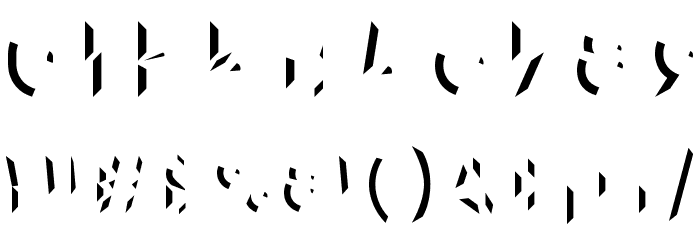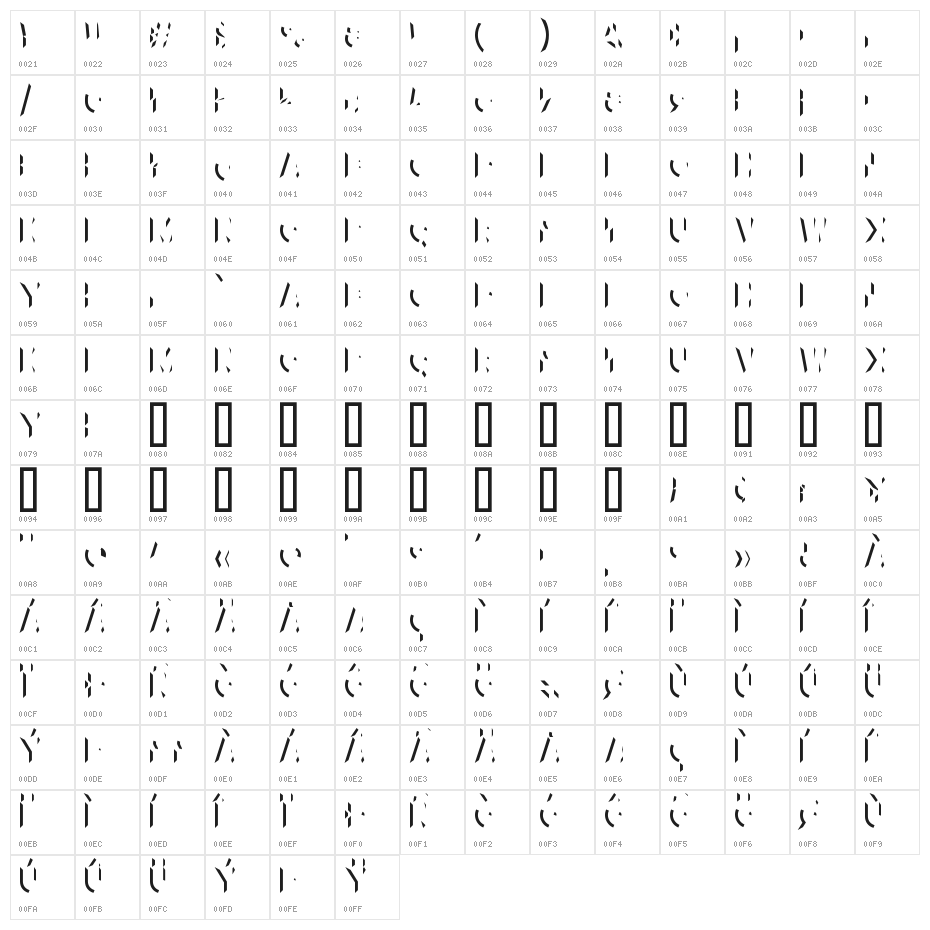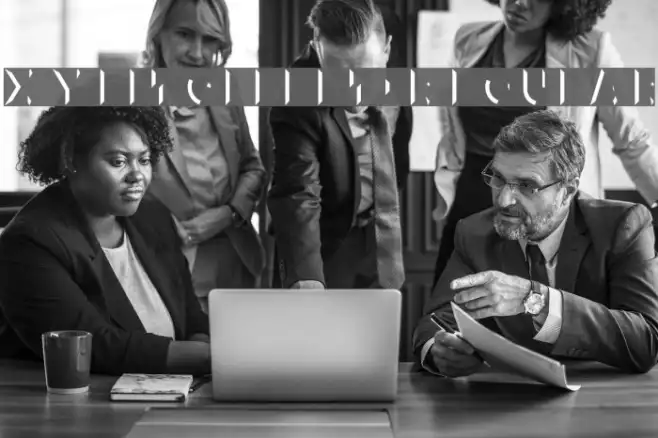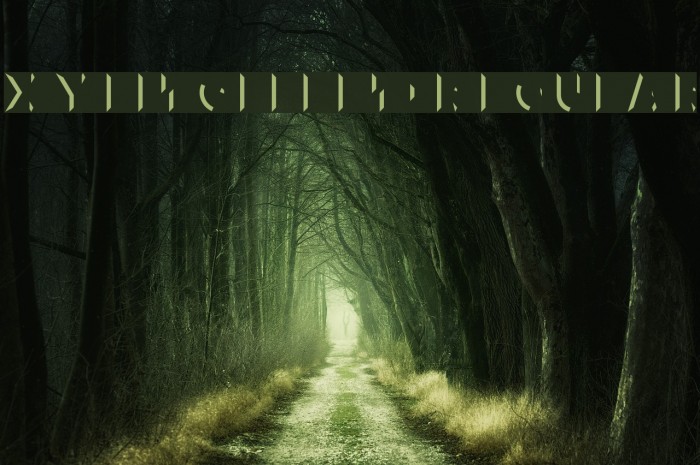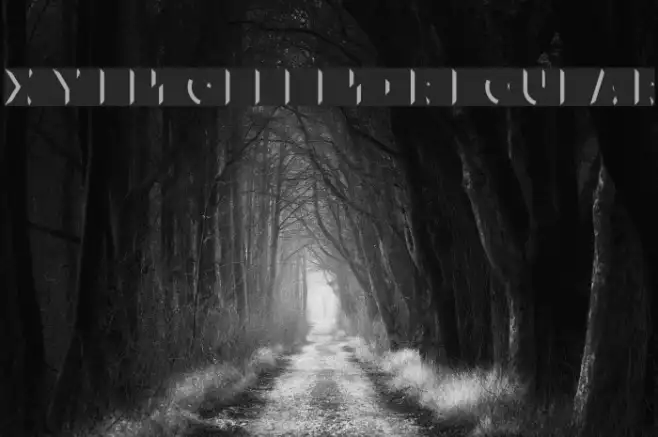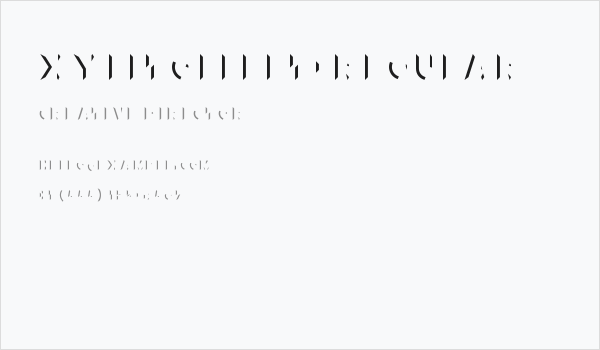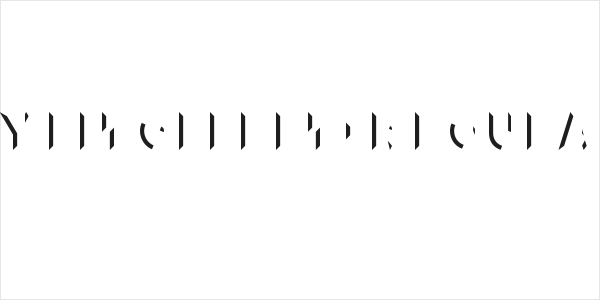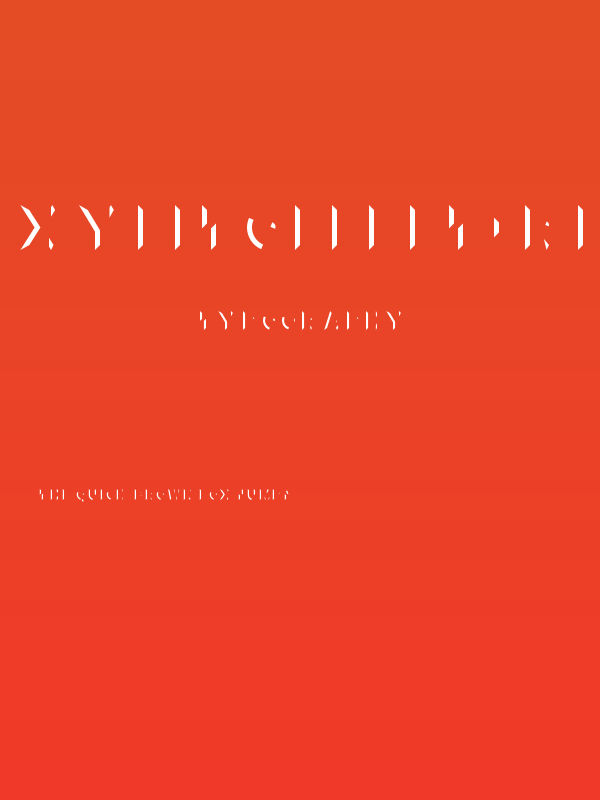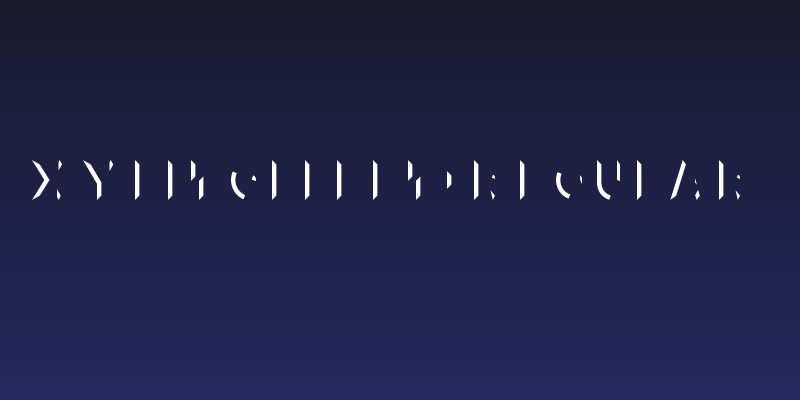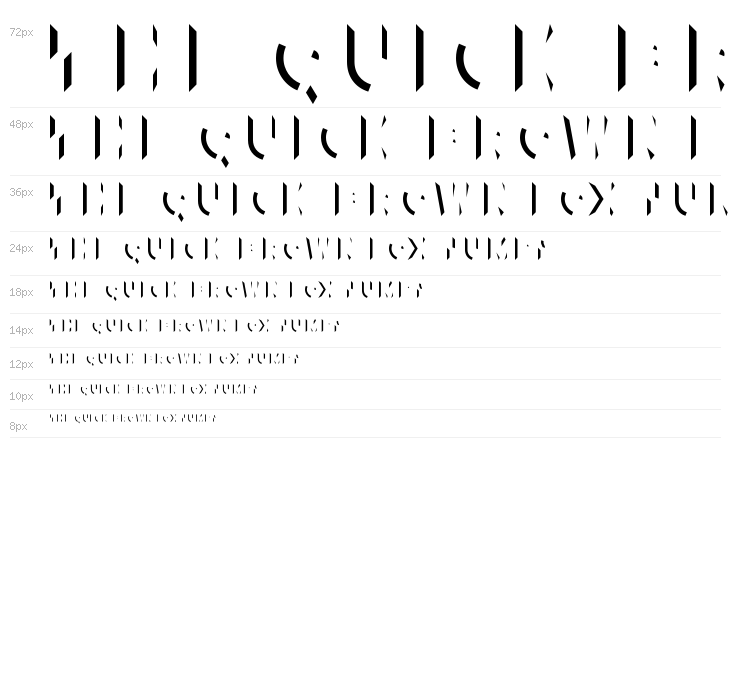
XylitolLeft-Regular Font
XylitolLeft-Regular Description
This font features a modern and artistic design with a unique stencil-like appearance. Each character is composed of bold, geometric shapes with strategic cutouts, creating a striking visual effect. The design is highly stylized, with a focus on angular lines and sharp edges, giving it a futuristic and edgy feel. The uppercase and lowercase letters maintain a consistent style, while the numbers and special characters complement the overall aesthetic. This font is ideal for projects that require a bold statement and a contemporary look.
| Proposed Projects | Ideal for branding, posters, album covers, and any project needing a modern, edgy look. |